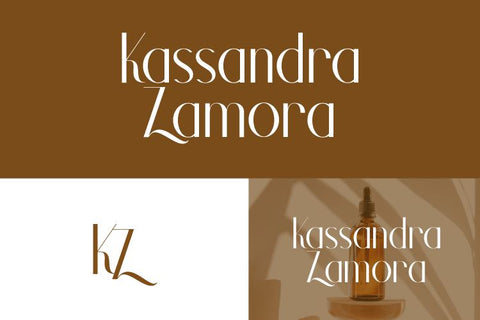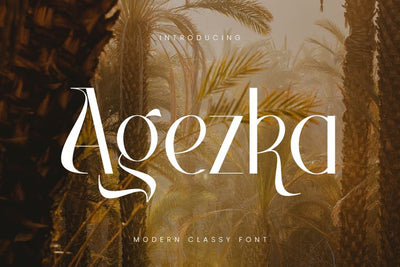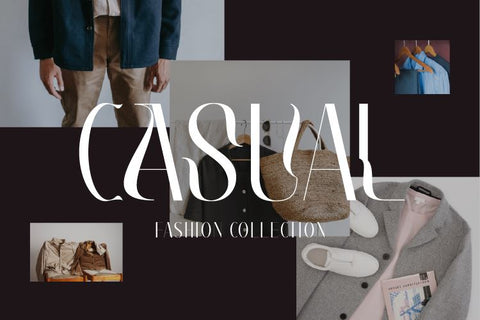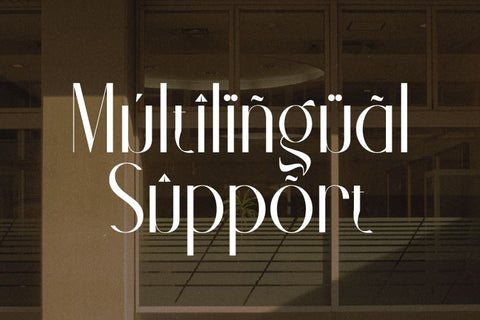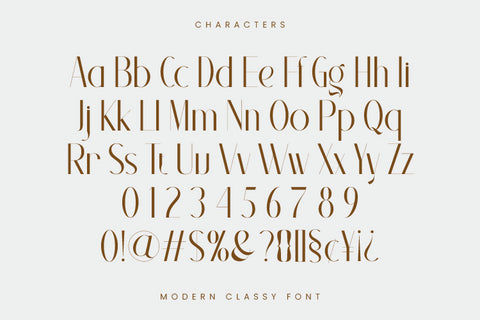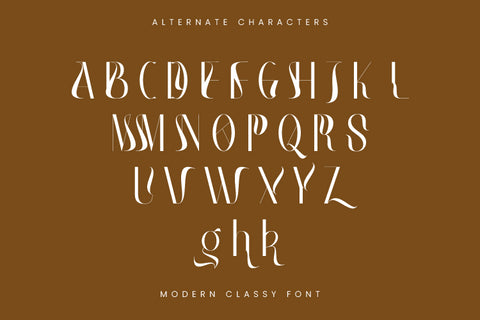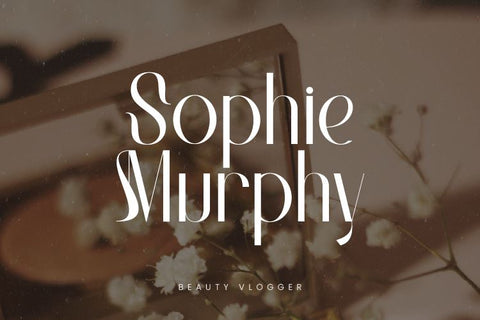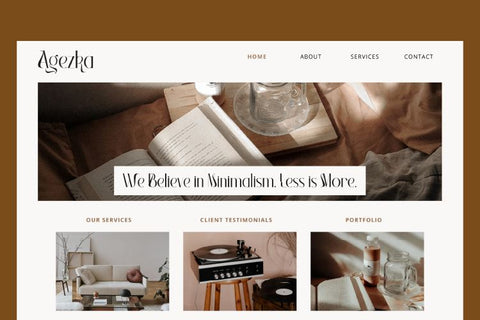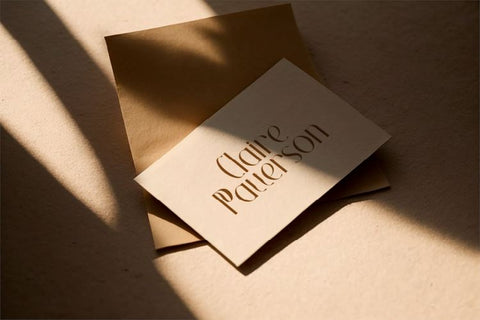
Agezka Display Font
Introducing the sophisticated Agezka Classy Display font. The blend of chic elegance and contemporary cool silhouette makes it an unparalleled selection for crafting logos, establishing brand aesthetic, designing invites, creating stationery, fashioning wedding creatives, sculpting social media posts and an array of other design opportunities. Agezka font boasts of PUA encoding, allowing full accessibility to all glyphs. The font’s remarkable features embrace All Caps, numeric and punctuation characters, multilingual support and alternate characters, catering to a myriad of design needs. With Agezka, versatility meets style.